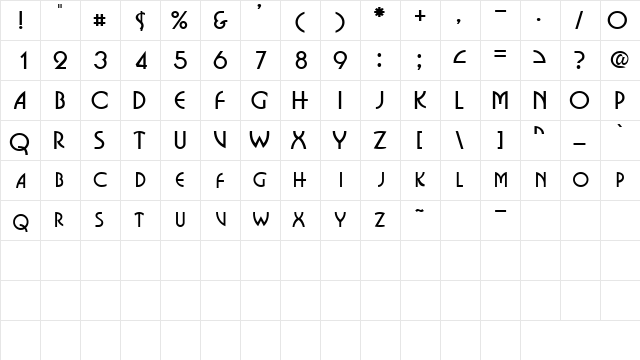
EpitomeSCapsSSK Regular
Design Context for EpitomeSCapsSSK Typeface
EpitomeSCapsSSK is a composed and adaptable typeface that performs quietly and consistently across a wide range of design contexts.